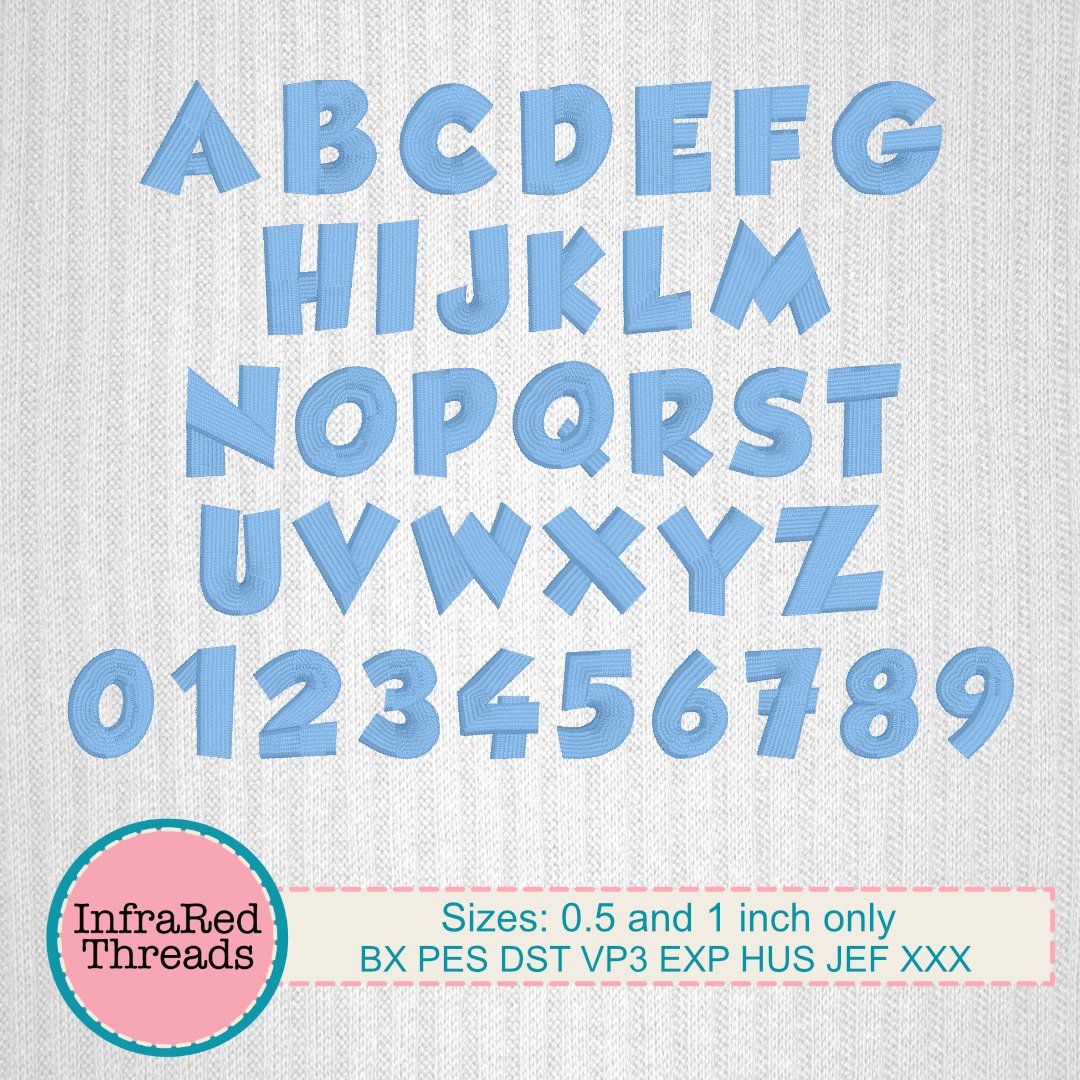
Blossom Satin Stitch Embroidery Font – Playful Typeface in 2 Sizes
The Blossom Font is a bold and fun embroidery font stitched in satin for a smooth, shiny finish. With quirky angles and chunky letters, this font adds a cheerful personality to any project. Ideal for kids’ items, seasonal projects, and playful personalization, Blossom is both eye-catching and easy to stitch.
Each uppercase letter is available in two popular sizes and works beautifully for names, monograms, or custom embroidery gifts. This font is perfect for crafters and small businesses looking for something lively and unique.